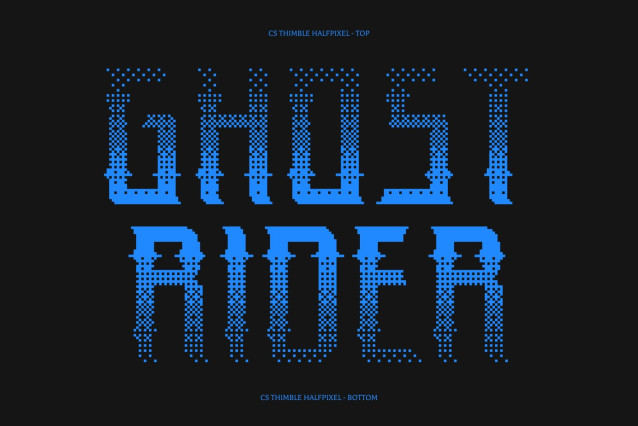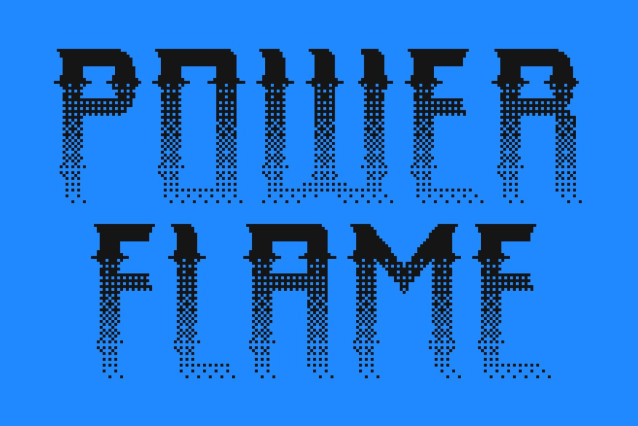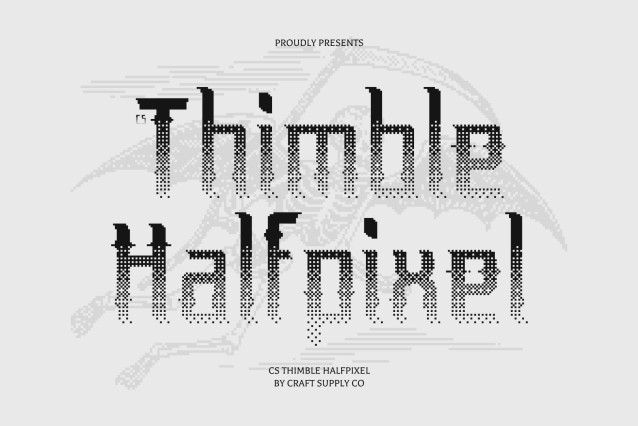
CS Thimble Halfpixel – Gothic Display Font
Mystical Elegance with Gothic Character
This is a dramatic gothic display typeface inspired by the beauty of medieval script. Its ornate letterforms feature intricate detailing, elegant curves, and a striking balance of thick and thin strokes, creating a powerful and captivating visual presence.
Inspired by Medieval Artistry
Drawing from the enchanting aesthetics of historical handwriting, this font evokes a sense of mystery, fantasy, and timeless craftsmanship. Its decorative structure makes it ideal for projects that explore dark, magical, or historical themes.